Font pairing is the small design decision that makes text feel calm, loud, elegant, playful, or hard to read. A good pair usually starts with one anchor typeface, then adds contrast through weight, width, serif style, or personality without making the layout fight itself.
Use this typography basics guide to learn how to combine fonts for web pages, posters, presentations, branding, and social graphics. The goal is simple: pick typefaces that create clear hierarchy, stay readable at real sizes, and support the mood of the design instead of showing off.
When I test a font combination, I look at the headline, body copy, and small captions together. If the body font is tiring or the headline steals all the attention, the pair is not ready yet.
Key Takeaways
- Start every font pairing with one anchor font, then add contrast through size, weight, style, or serif structure
- Use hierarchy, spacing, and readability checks before judging whether a font combination looks good
- Font pairing generators are useful for ideas, but the final test is your actual headline, body text, and layout
How to pair fonts step by step
To pair fonts well, choose one readable anchor font first, then add a second font that contrasts in a controlled way. A simple serif headline with a clean sans-serif body is often enough. Keep the body copy quiet, reserve the expressive font for headings or short labels, and test the pair at the sizes readers will actually see.
The safest beginner rule is to use two typefaces and three roles: headline, body, and accent. If you need more variety, change weight or size inside the same font family before adding a third typeface.
| Font pairing step | What to check | Practical rule |
|---|---|---|
| Choose the anchor | Body readability | Pick the font people will read the most before choosing the decorative one. |
| Add contrast | Serif, sans-serif, weight, width, or mood | Make the difference clear enough to look intentional. |
| Build hierarchy | Headline, subhead, body, caption | Each text level should be recognizable in two seconds. |
| Limit the palette | Number of typefaces | Use two families for most layouts; three only when each has a job. |
| Test in context | Real copy and real screen or print size | A pair that looks good in a sample can fail in a full design. |
Typography basics for better font pairing
Typography is the way text is shaped, spaced, ordered, and read. Once you understand typefaces, font categories, and readability, font pairing stops feeling like guessing and starts feeling like a set of design choices.
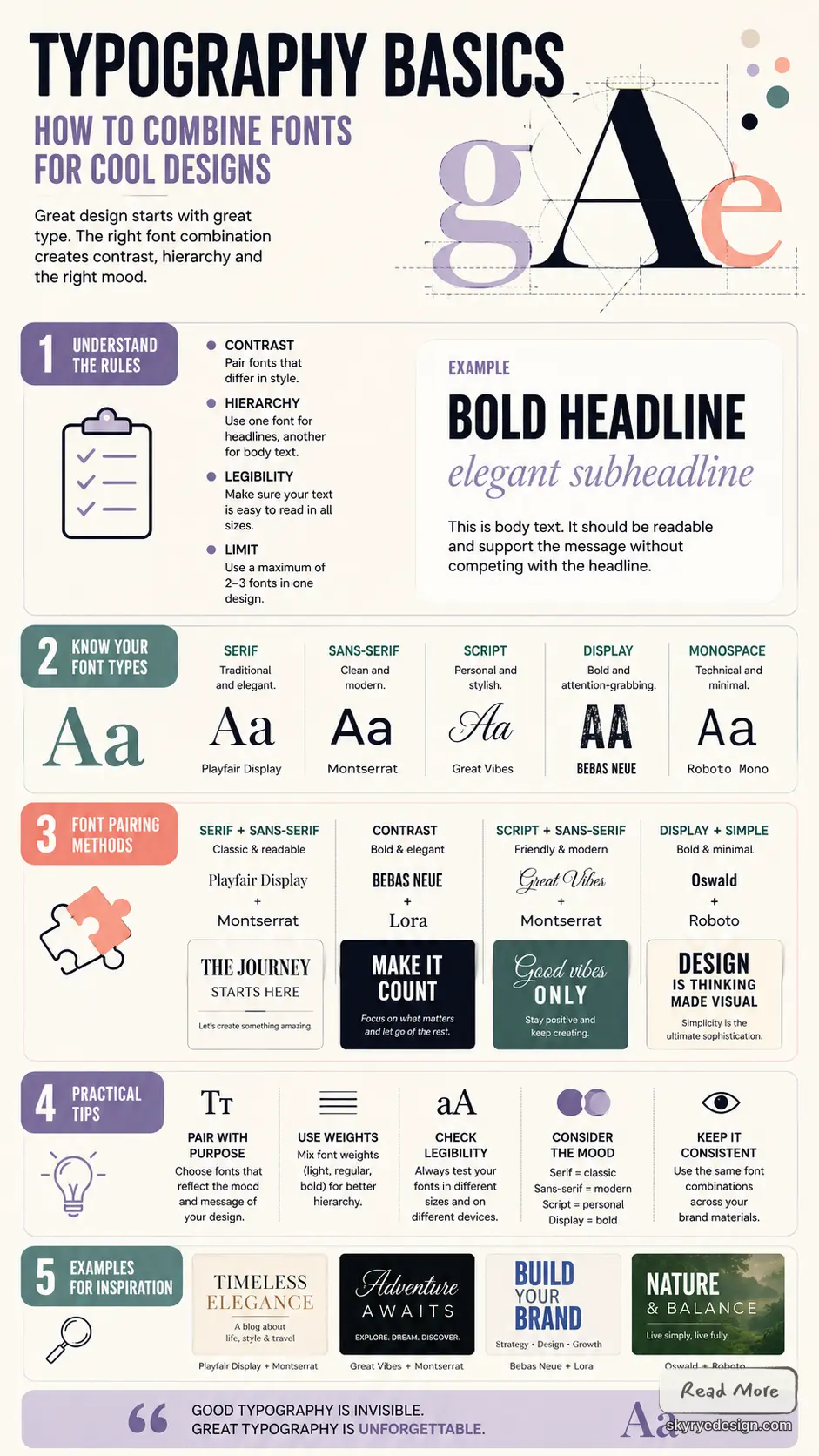
What Is Typography?
Typography is the art and science of arranging text to make written language legible, readable, and visually appealing. It encompasses everything from selecting typefaces to determining spacing between letters and lines.
Typography goes beyond simply choosing fonts that look good. You control how readers experience your message through careful consideration of text arrangement and styling.
The practice involves making deliberate choices about font family, font size, spacing, and layout. These decisions directly impact how your audience perceives and processes information.
Good typography guides the reader’s eye naturally through your content. It establishes hierarchy, creates emphasis, and supports your overall design goals.
Key Typographic Terms
Understanding essential typography vocabulary helps you communicate design decisions effectively and work with fonts more precisely.
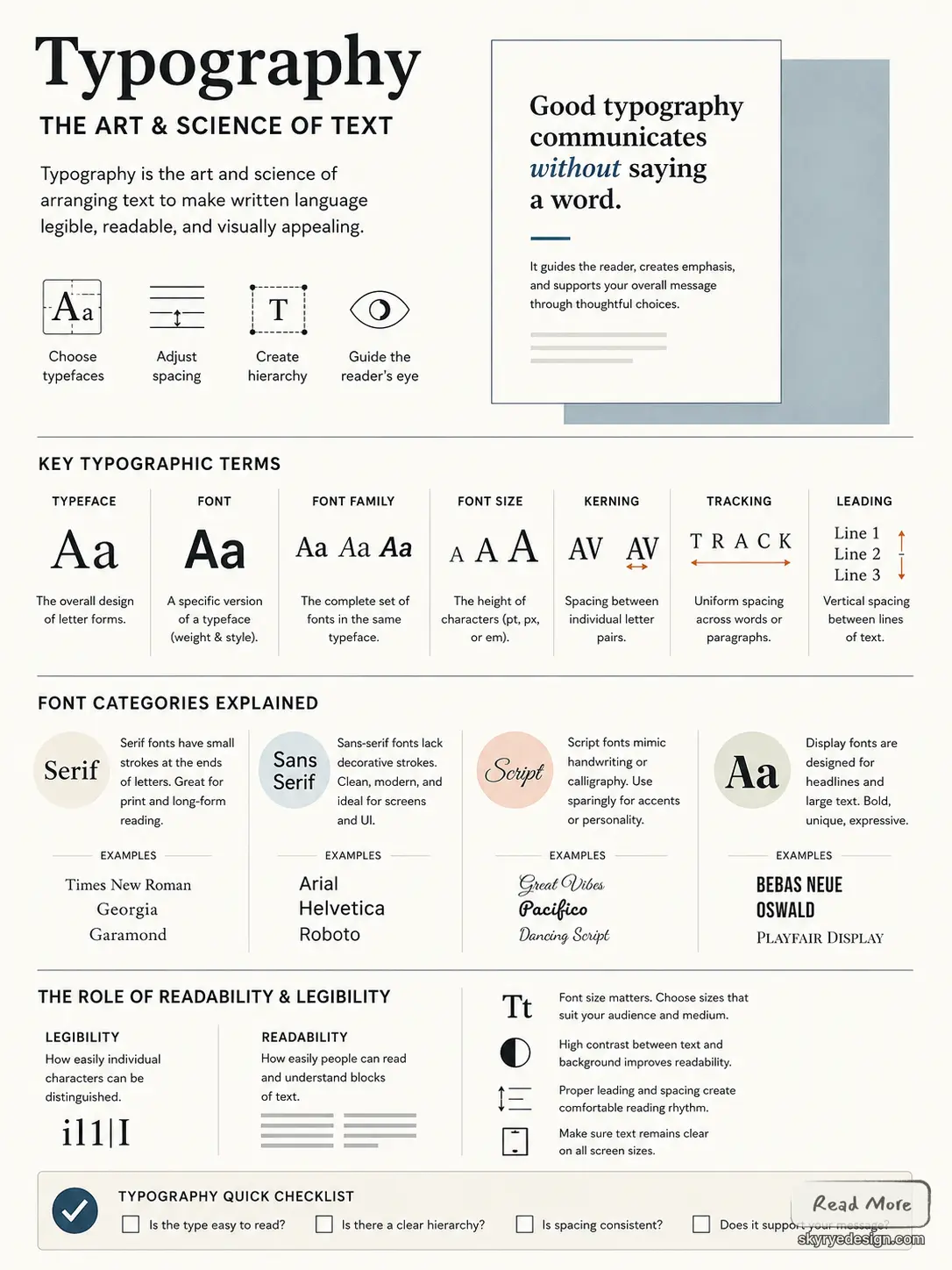
A typeface refers to the overall design of letter forms, such as Helvetica or Times New Roman. A font is a specific version of that typeface, including weight and style variations.
Font family describes the complete set of fonts sharing the same typeface design. This includes regular, bold, italic, and other variations within the same design system.
Font size determines the height of characters, typically measured in points or pixels. Larger font sizes improve readability but require more space.
Kerning controls spacing between individual letter pairs. Tracking adjusts spacing across entire words or paragraphs uniformly.
Leading refers to vertical spacing between lines of text. Proper leading prevents text from appearing cramped or too spread out.
Font Categories Explained
Font categories help you understand different typeface styles and their appropriate uses in design projects.
Serif fonts feature small decorative strokes extending from letter forms. These fonts traditionally work well for printed materials and long-form reading.
Popular serif fonts include Times New Roman, Georgia, and Garamond. They convey formality and tradition in design applications.
Sans-serif fonts lack decorative strokes, creating cleaner, more modern appearances. They perform exceptionally well on digital screens and in user interfaces.
Common sans-serif options include Arial, Helvetica, and Roboto. These fonts communicate simplicity and contemporary aesthetics.
Script fonts mimic handwritten or calligraphic styles. Use them sparingly for decorative purposes or to add personality to specific design elements.
Display fonts are designed for headlines and large text applications. They often feature unique characteristics that make them unsuitable for body text.
The Role of Readability and Legibility
Readability and legibility are fundamental considerations that determine how effectively your typography communicates with readers.
Legibility refers to how easily individual characters can be distinguished from one another. Clear letter forms and adequate spacing improve legibility significantly.
Readability encompasses how easily people can read and comprehend entire blocks of text. Factors include font choice, size, line spacing, and contrast.
Font size plays a crucial role in both readability and legibility. Text that’s too small strains readers’ eyes, while oversized text can disrupt reading flow.
Consider your audience and medium when making typography decisions. Older readers may need larger font sizes, while mobile users require fonts that remain clear on smaller screens.
High contrast between text and background colors enhances readability. Dark text on light backgrounds typically provides optimal reading conditions.
Principles of Combining Fonts
Successful font combinations rely on creating harmony between different typefaces while maintaining clear visual hierarchy. The key lies in balancing complementary fonts with varied weights and styles to guide readers through your design.
Font Harmony and Contrast
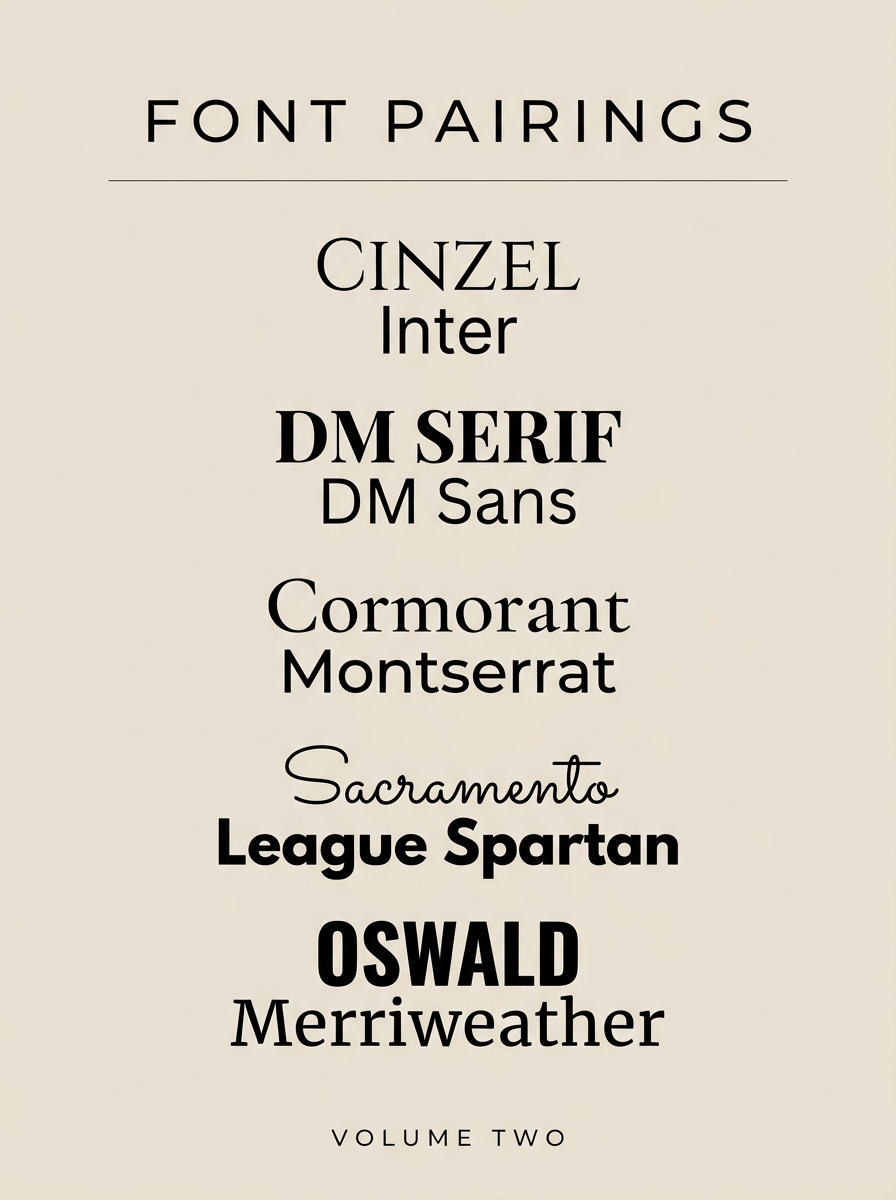
Font pairing works best when you combine typefaces that complement each other without competing for attention. Complementary fonts share similar characteristics like x-height or overall proportions while offering distinct personalities.
The most effective approach involves pairing fonts from different categories. Combine a serif font with a sans-serif for classic contrast. Use a script font with a clean sans-serif for elegant variety.
Character and mood play crucial roles in font harmony. Match fonts that share similar emotional qualities:
- Playful designs: Pair rounded sans-serif with casual script
- Professional layouts: Combine traditional serif with modern sans-serif
- Creative projects: Mix display fonts with neutral body text
Avoid pairing fonts that are too similar, as they create confusion rather than harmony. Two sans-serif fonts with identical characteristics will look like a mistake rather than an intentional choice.
Visual Hierarchy in Typography
Visual hierarchy guides readers through your content by establishing clear importance levels. Font combinations should create distinct layers that organize information effectively.
Start with your most important element using the boldest or most distinctive font. Headlines typically use display fonts or heavy weights to grab attention first.
Create hierarchy through these font characteristics:
| Element | Font Treatment |
|---|---|
| Headlines | Large, bold, display fonts |
| Subheadings | Medium weight, slightly smaller |
| Body text | Regular weight, readable font |
| Captions | Small, light weight |
Font weight variations within the same family create subtle hierarchy. Use bold for emphasis, regular for body text, and light for secondary information.
Size relationships matter more than actual measurements. Maintain consistent ratios between heading levels and body text to create predictable navigation paths.
Balancing Font Weights and Styles
Font weight balance prevents any single element from overwhelming your design. Heavy fonts need lighter companions to create visual breathing room.
When combining fonts, consider the optical weight rather than just the numerical weight. Some fonts appear heavier or lighter than their designated weight suggests.
Font styles like italic, bold, and condensed add variety without introducing new typefaces. Use these variations strategically:
- Italic for emphasis or quotes
- Bold for important keywords
- Condensed for space-saving headers
Limit yourself to two or three font weights maximum. Too many weights create visual chaos and weaken your message hierarchy.
Test your font combinations at different sizes to ensure they work across all applications. What looks balanced at large sizes might feel uneven in smaller text blocks.
Practical Strategies for Font Pairing
Successful font pairing requires balancing contrast with harmony while considering font families, sizes, and spacing. The key is choosing complementary typefaces that create visual hierarchy without competing for attention.
Choosing Complementary Typefaces
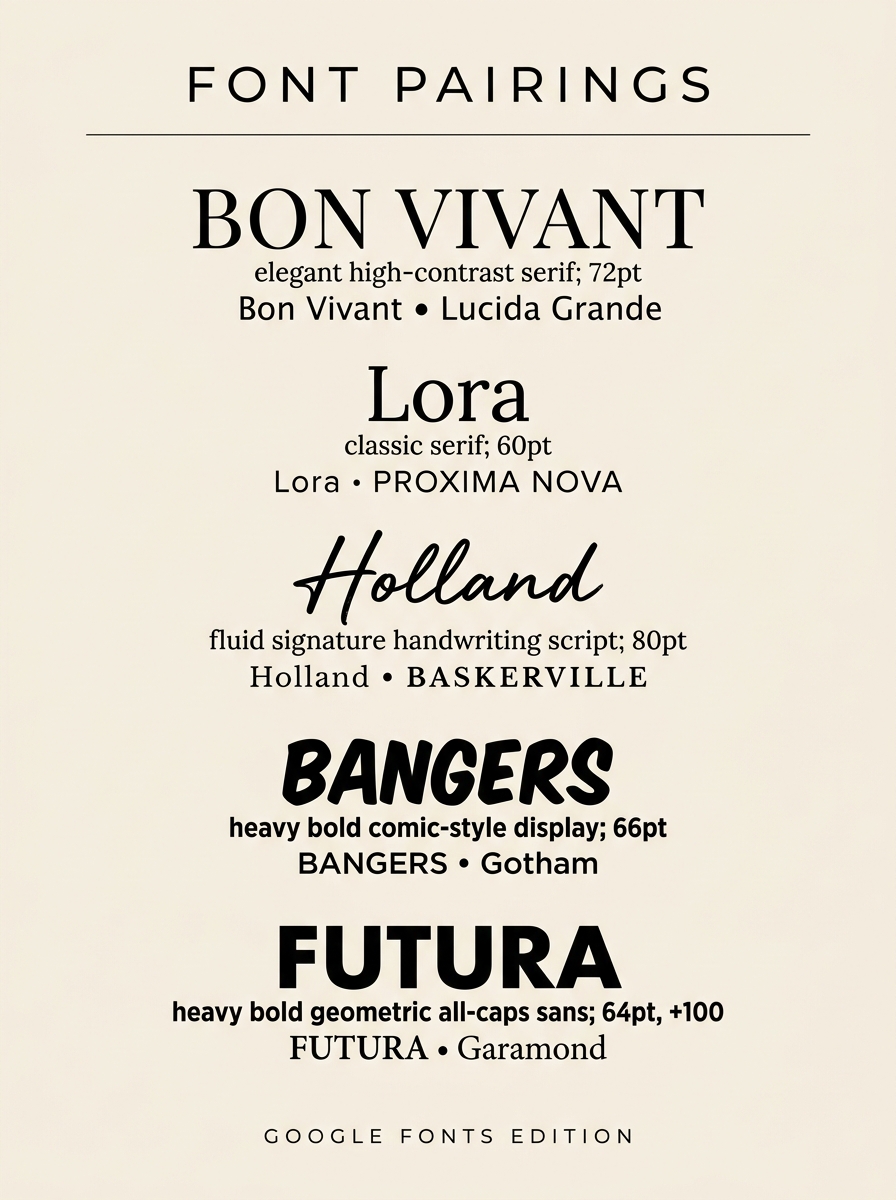
Font choice becomes easier when you understand how different typefaces work together. Serif fonts pair naturally with sans-serif fonts because they offer contrast without conflict.
High-contrast combinations work well for creating emphasis. Try pairing a bold serif font for headlines with a clean sans-serif for body text. This combination provides visual interest while maintaining readability.
Similar-weight pairings create subtle harmony. You can combine two sans-serif fonts from different families if they share similar stroke weights and proportions.
Consider the mood of your typefaces when making font combinations. A playful script font clashes with a serious corporate serif, but it complements a casual sans-serif beautifully.
Avoid pairing fonts that are too similar. Two serif fonts from the same era or style often look like a mistake rather than an intentional choice.
Limit yourself to 2-3 fonts maximum in any design. More font combinations create visual chaos and dilute your message.
Matching Font Sizes and Spacing
Font sizes establish clear hierarchy in your design. Your headline should be at least 2-3 times larger than your body text to create proper contrast.
Line spacing affects readability dramatically. Set your leading (line height) to 120-150% of your font size for optimal reading comfort. Tighter spacing works for headlines, while body text needs more breathing room.
Tracking adjustments help balance your font combinations. Increase letter spacing for all-caps text or decorative fonts. Decrease it slightly for large headlines to improve visual cohesion.
Scale your font sizes proportionally using a type scale. Common ratios include 1.2, 1.333, or 1.5, which create harmonious size relationships between different text elements.
Maintain consistent spacing across your font family choices. If you use generous line spacing for one font, apply similar spacing principles to your secondary fonts.
Balancing Serif, Sans-Serif, and Script Fonts
Understanding when to use each font category helps create balanced designs. Serif fonts work best for long-form reading and traditional contexts.
Sans-serif fonts excel in digital environments and modern designs. They remain legible at small sizes and work well for user interfaces and mobile applications.
Script fonts should be used sparingly as accent elements. They work perfectly for logos, short headlines, or decorative elements but become unreadable in body text.
Create hierarchy by assigning specific roles to each font type. Use serif fonts for headlines, sans-serif for body text, and script fonts for special emphasis or branding elements.
Avoid mixing multiple scripts in one design unless you’re creating a very specific artistic effect. One script font per project maintains sophistication.
Test your font combinations at different sizes to ensure they work across all applications. What looks good at poster size might fail at business card dimensions.
Common font pairing mistakes to avoid
Most weak font combinations fail for ordinary reasons. The fonts may be too similar, too decorative, or competing for the same job in the layout.
- Using two display fonts together: keep decorative type for short headlines, badges, or accents.
- Pairing fonts with almost no contrast: if two typefaces look like near-misses from the same category, use one family instead.
- Forgetting small text: captions, buttons, and mobile body copy expose weak font choices quickly.
- Letting mood beat clarity: a stylish script font is only useful when people can read it without slowing down.
A quick fix is to print the design small or zoom out until the text becomes tiny. If the hierarchy still reads, the pairing is probably doing its job.
Effective font combinations and examples
The most successful font combinations balance contrast with harmony, creating visual interest while maintaining readability. These proven pairings work across both digital and print applications, offering reliable starting points for your design projects.
Timeless Serif and Sans-Serif Pairs
Combining serif and sans-serif fonts creates natural contrast that guides readers through your content. The serif font typically handles body text while the sans-serif manages headings.
Garamond pairs beautifully with clean sans-serif fonts like Helvetica or Arial. This combination works exceptionally well for editorial designs and professional documents.
For web projects, try Archivo Narrow as your heading font with Georgia for body text. This pairing offers excellent screen readability while maintaining sophistication.
Popular serif and sans-serif combinations:
- Times New Roman + Futura
- Minion Pro + Myriad Pro
- Crimson Text + Open Sans
These complementary fonts create hierarchy without competing for attention. The serif provides warmth and tradition while the sans-serif delivers modern clarity.
Modern Script and Display Font Combos
Script fonts add personality but require careful pairing to avoid overwhelming your design. Yellowtail works well with structured fonts like Lato or Montserrat for contemporary projects.
Limit script fonts to headlines, logos, or accent text. Pair them with neutral sans-serif fonts for body copy to ensure readability.
Display font combinations that work:
- Playfair Display + Source Sans Pro
- Oswald + Merriweather
- Bebas Neue + Lora
Roboto Condensed serves as an excellent support font for decorative typefaces. Its compact structure provides breathing room while maintaining strong readability.
Sample Font Pairings for Web and Print
Google Fonts offers tested combinations through their pairing suggestions. Popular web combinations include Raleway with Lora, and Poppins with Source Serif Pro.
Adobe Fonts provides professional font families designed to work together. Their font pair recommendations ensure consistency across different weights and styles.
Web-optimized pairings:
- Nunito + Crimson Pro
- Inter + Spectral
- Work Sans + Inconsolata
Print-friendly combinations:
- Caslon + Gill Sans
- Baskerville + Avenir
- Sabon + Univers
Test your chosen font families at different sizes and weights. What works for headlines might not function well for body text, so adjust accordingly.
Tools, Resources, and Advanced Tips
Modern font pairing relies heavily on digital tools and staying current with design trends. Effective testing methods and reliable resources can transform your typography from basic to professional-level design work.
Using Online Font Pairing Tools
Google Fonts offers a large free font library with filtering by category, weight, language, and variable font support. It is useful for building simple font combinations before moving into a full layout.
The platform provides filtering options by style, weight, and language support. You can also view popular pairings that other designers have successfully used in their projects.
Typ.io shows real-world font combinations from websites, which is more useful than judging a pair in isolation. It helps you see how designers use scale, spacing, and hierarchy with the fonts.
Fonts in Use is a visual archive of typography across books, posters, identities, packaging, and interfaces. Browse by typeface, designer, or project type when you want font pairing examples with real design context.
Adobe Fonts integrates with Creative Cloud and includes recommendations, tags, and family filters. It is especially helpful when a project needs licensed fonts for brand, print, or client work.
For quick idea generation, tools like Fontpair and Fontjoy can give you a shortlist. Treat those suggestions as a starting point, then test the pair with your own copy, contrast, and layout.
Testing Font Combinations Effectively
Start by creating a simple test document with your chosen fonts at different sizes. Include headings, subheadings, body text, and captions to see how the combination performs across all hierarchy levels.
Test your font pairs in their actual context. Web design projects should be tested in browsers, while print materials need physical proofs to assess readability and visual impact.
Consider these key testing scenarios:
- Different screen sizes for digital projects
- Various lighting conditions for print materials
- Long-form reading to check comfort and legibility
- Accessibility requirements including contrast and screen readers
Use placeholder text in multiple languages if your project targets diverse audiences. Some font combinations work well in English but fail with accented characters or different writing systems.
Staying Updated with Typography Trends
Follow design blogs and typography-focused publications that regularly feature new font releases and pairing techniques. Many foundries announce new typefaces monthly with suggested companion fonts.
Social media platforms like Instagram and Pinterest showcase current typography trends through design portfolios. Search hashtags like #typography and #fontpairing to discover fresh combinations.
Typography conferences and workshops provide hands-on learning opportunities. Many events now offer virtual attendance options, making professional development more accessible.
Subscribe to newsletters from major type foundries. These often include exclusive previews, pairing guides, and case studies from successful design projects.
Consider joining online communities where designers share font discoveries and pairing experiments. These forums often discuss both free and premium options for different project types.
When the font pair is for a beginner brand mark, build a quick Canva logo design draft and test whether the wordmark still reads as a small social icon.
Related design practice
Once your font pairing feels steady, the next useful checks are hierarchy, brand fit, and the surrounding layout. These guides can help you test the typography inside a fuller design system: design principles in graphic design, UI/UX design guide, user experience basics, logo design ideas for business, small brand touchpoints, graphic design portfolio examples, Webflow vs WordPress for design agencies, and voice user interface design.
Font pairing FAQ
Q: What is font pairing?
A: Font pairing is the practice of using two or more typefaces together so the design has clear hierarchy, readable text, and a consistent mood. Most good pairs use contrast, such as a serif headline with a sans-serif body, while keeping one font quiet enough for longer reading.
Q: How do you pair fonts for beginners?
A: Start with a readable body font, then choose a headline font that contrasts in style, weight, or structure. Limit the layout to two font families, test real copy instead of sample words, and use size and spacing to make the headline, subhead, body, and caption roles obvious.
Q: What fonts go well together?
A: Serif and sans-serif combinations are the safest starting point because they create visible contrast without feeling chaotic. Try a characterful serif for headings with a neutral sans-serif for body text, or use one superfamily with different weights when you want a cleaner, quieter design.
Q: How many fonts should a design use?
A: Most designs only need two font families. Use one for body copy and one for headlines or accents. If the layout needs more variety, try extra weights, italics, small caps, or spacing changes inside the same family before adding a third typeface.
Q: What is the biggest font pairing mistake?
A: The biggest mistake is choosing fonts because each one looks nice on its own. Fonts need jobs. If both typefaces are decorative, both are condensed, or both demand attention, the hierarchy becomes muddy and the reader has to work harder than they should.
Q: Are font pairing generators enough?
A: Font pairing generators are good for quick ideas, but they are not a final design check. Always test the pair with your own copy, brand colors, button labels, captions, and mobile sizes. A generated pair can look polished in a preview and still fail in the real layout.